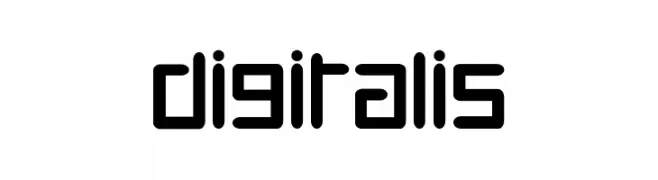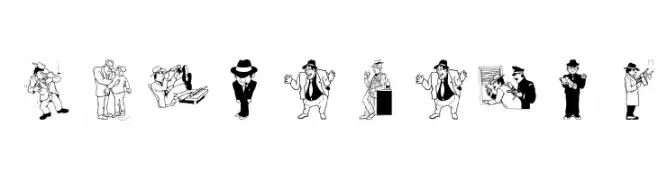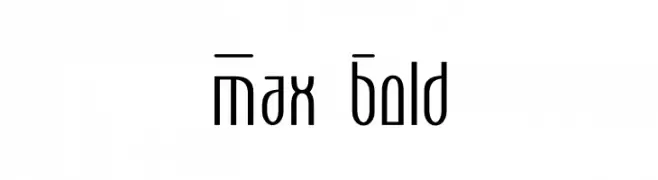
Lora Bold Font
A bold, classic serif font with medium contrast and elegant curves.
Max Font
A modern, sleek font with elongated, narrow characters and consistent stroke width.
Lora Regular Font
A modern serif font with medium contrast and a touch of calligraphic elegance.
Max Bold Font
A modern, geometric font with elongated, narrow letterforms and a sleek design.
Andika Basic Font
A clean, sans-serif font with a modern and approachable design.
Osterbar Font
A bold, modern typeface with clean lines and strong presence.
Digitalis Font
A modern, geometric font with rounded edges and bold characters.
Tanohe Sans Medium Font
A clean, modern sans-serif font with geometric letterforms.
GOSTRUS type B Font
A modern, geometric font with consistent stroke widths and high legibility.
vtks alcalina Font
An ornate, Gothic-inspired font with elaborate curls and high contrast.
InTwilight Font
Cartoon gangster-themed pictorial display font.
GOSTRUS type sB Font
A modern, slanted sans-serif font with a clean and dynamic appearance.
MardiKrass Font
A cartoonish, festive display font made of illustrated characters.
American Years PERSONAL USE Regular Font
A bold, decorative font with swirling, artistic characters.
Devil Candle PERSONAL USE Regular Font
A bold, dramatic serif font with sharp, angular serifs.
Tanohe Sans Thin Italic Font
A thin, italicized sans-serif font with a modern and elegant style.
Black Wizard Straight PERSONAL Regular Font
A bold, playful font with angular, dynamic characters.
Las Americas PERSONAL USE Regular Font
A bold, flowing script font with smooth, connected letters.
Umpire Serif Alt PERSONAL USE Regular Font
A modern serif font with sharp, angular serifs and artistic character designs.
Devil Candle Alt PERSONAL USE Regular Font